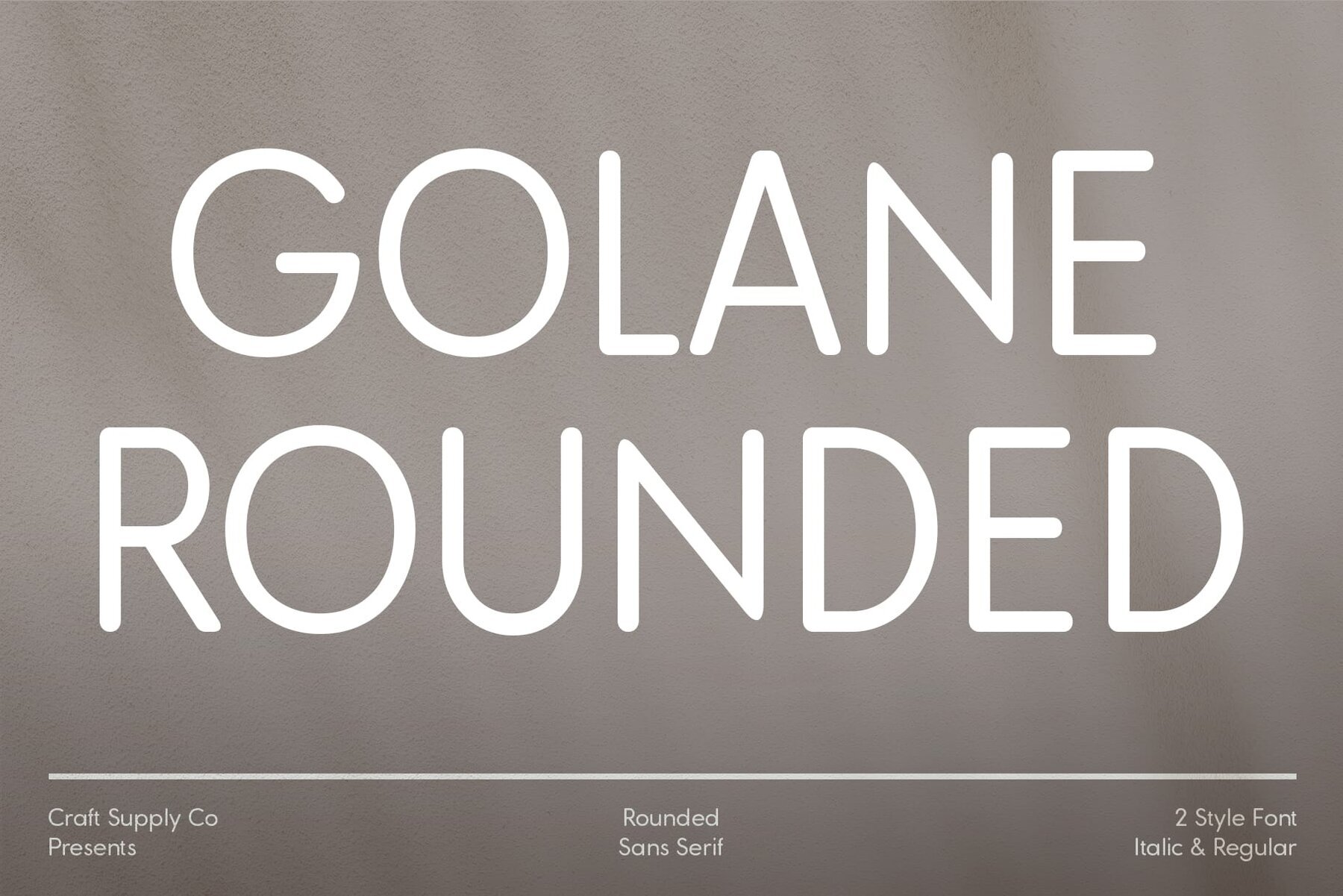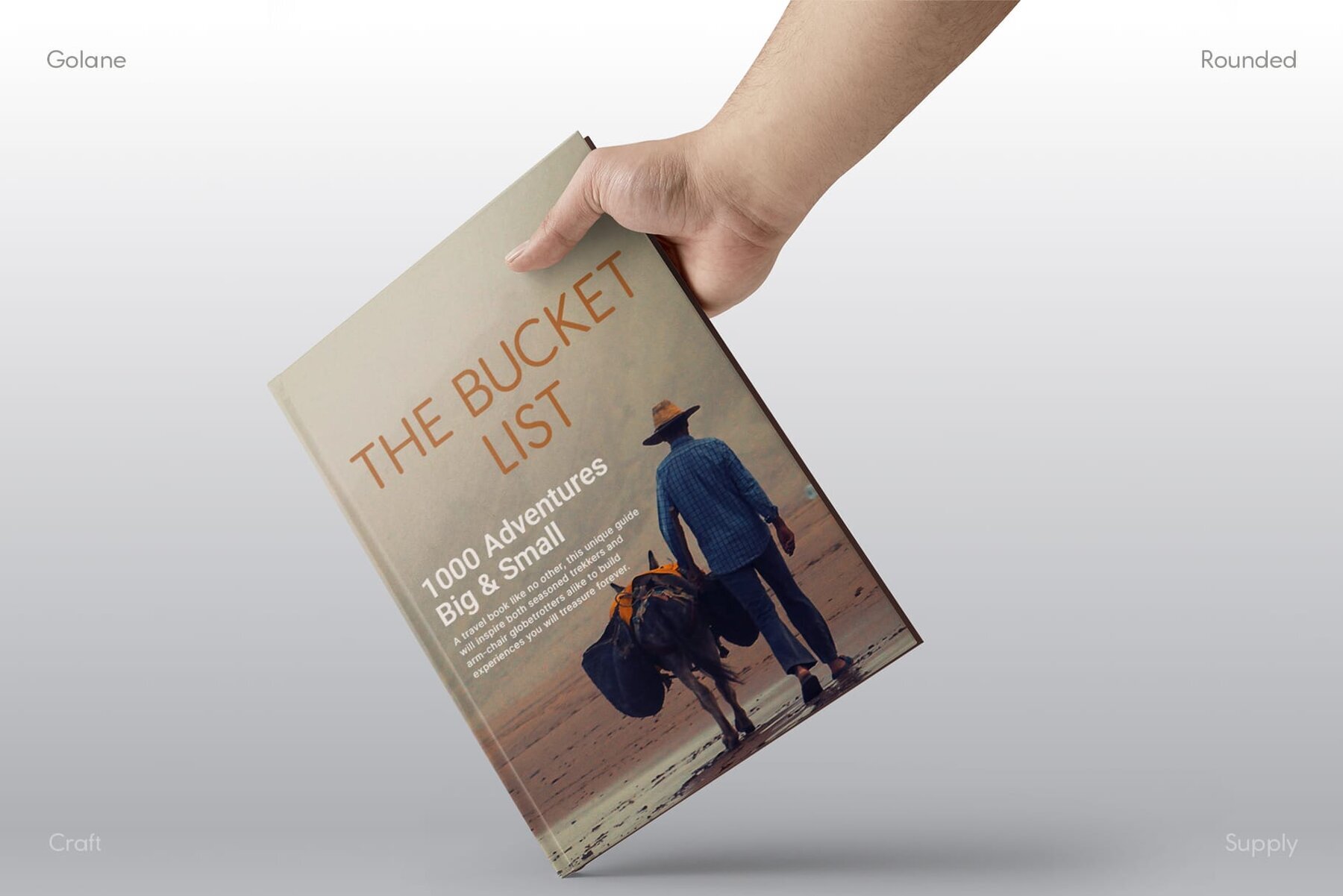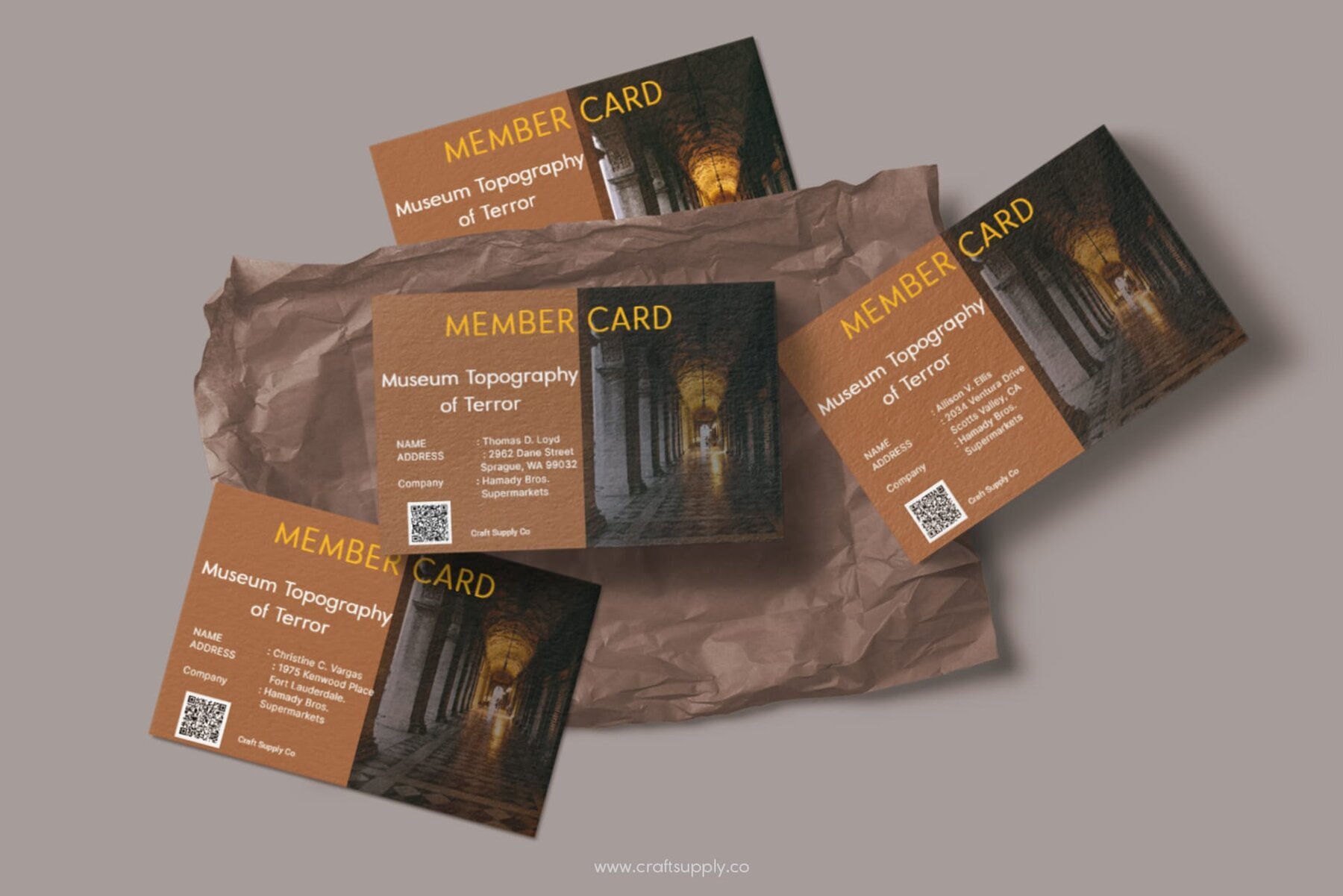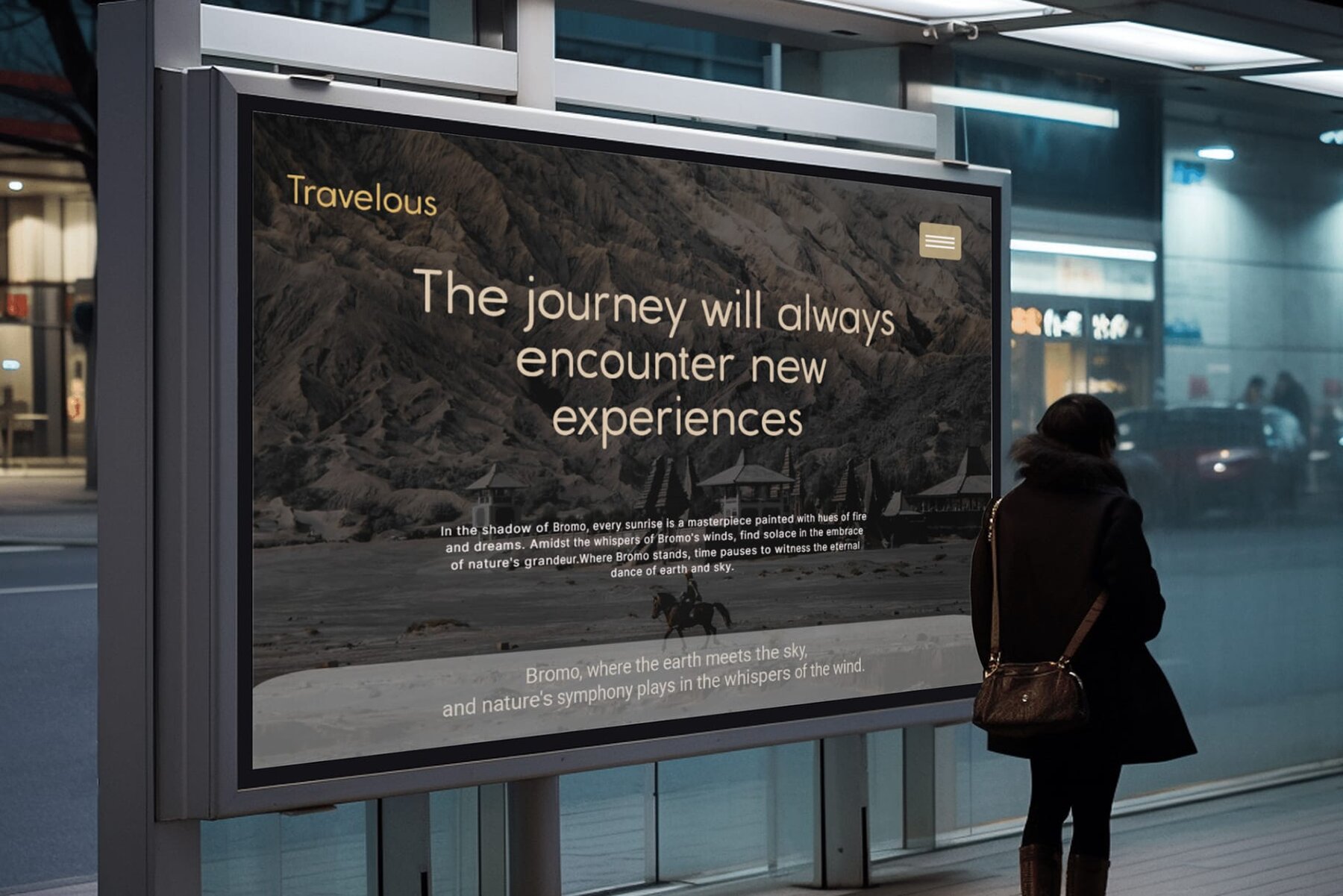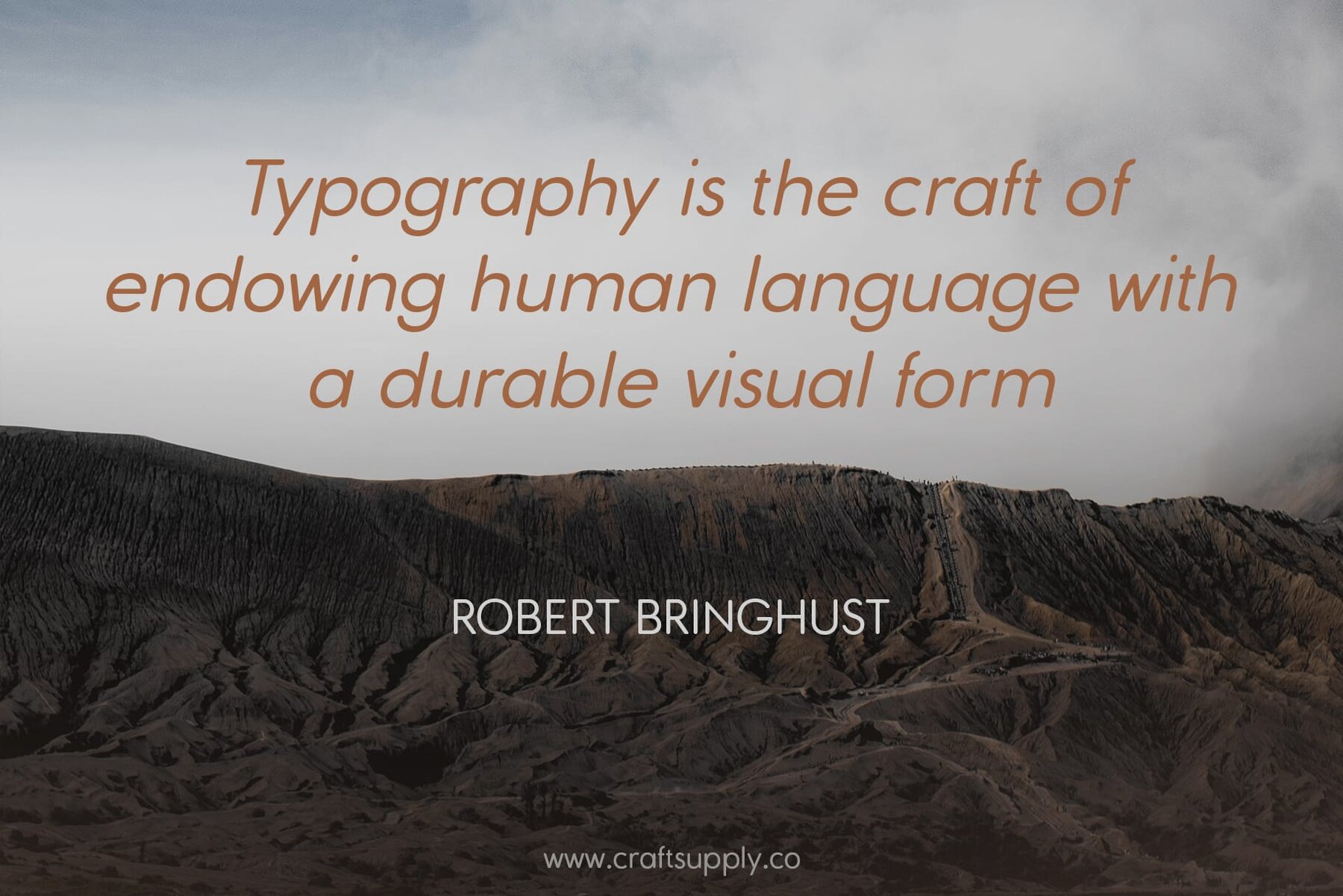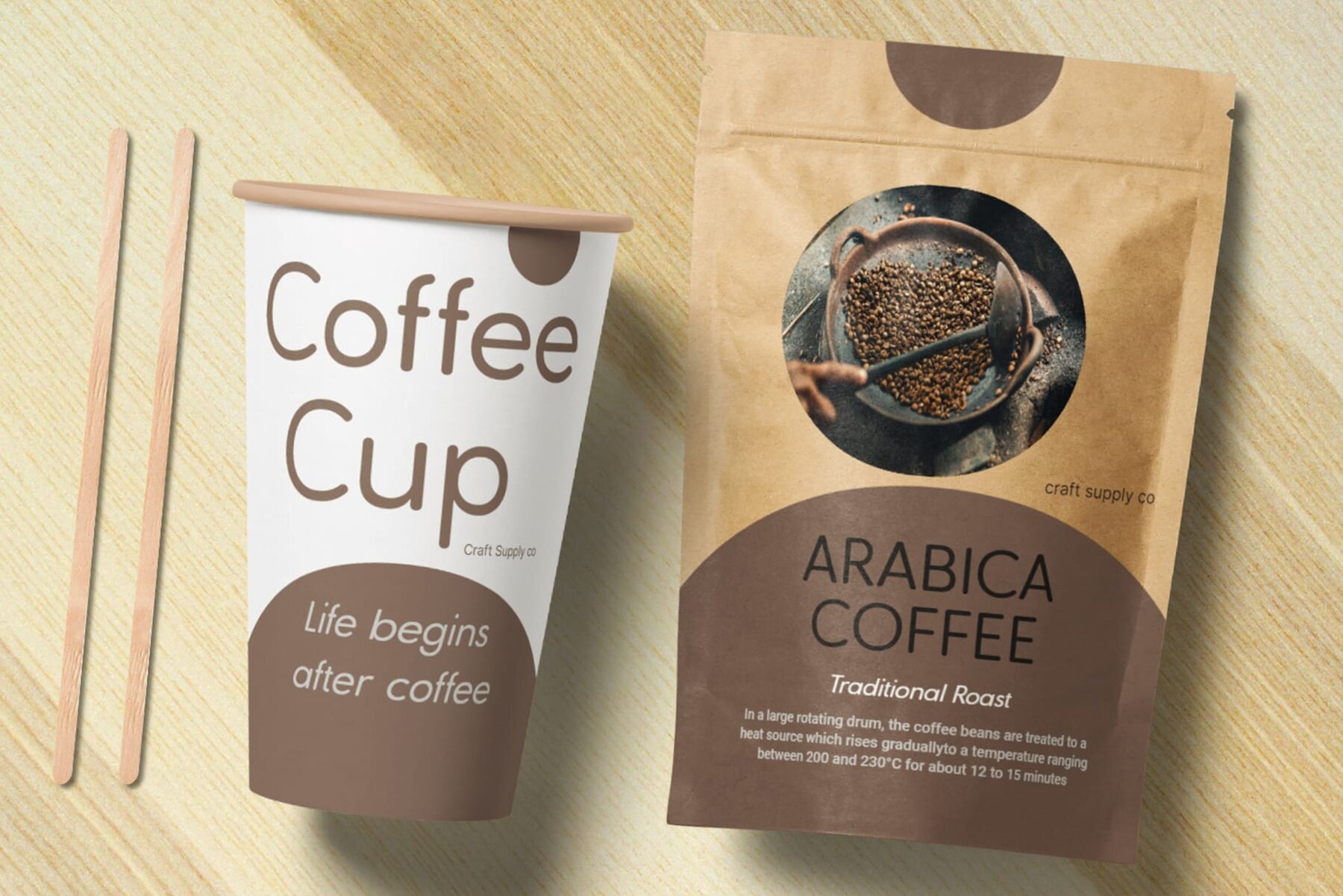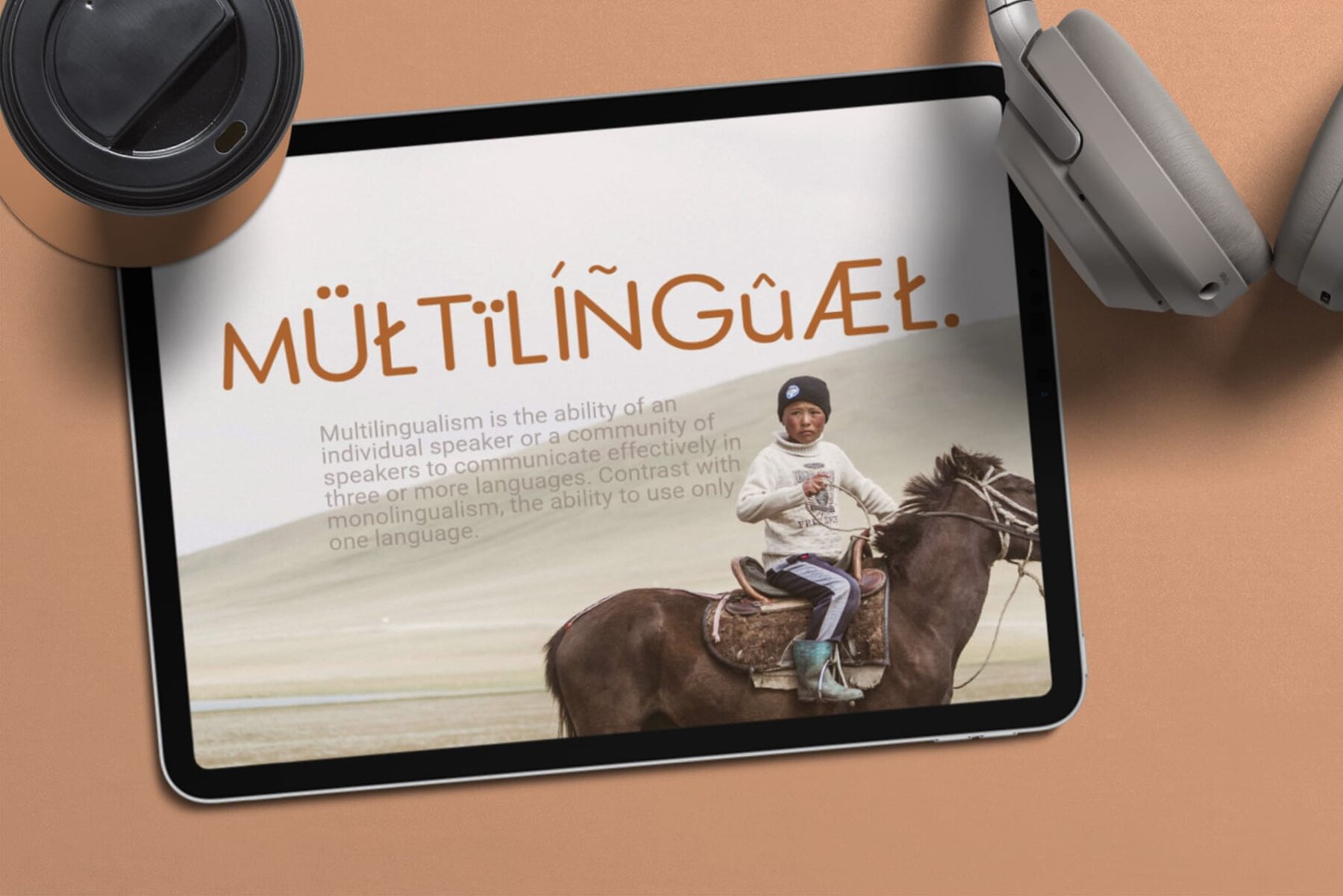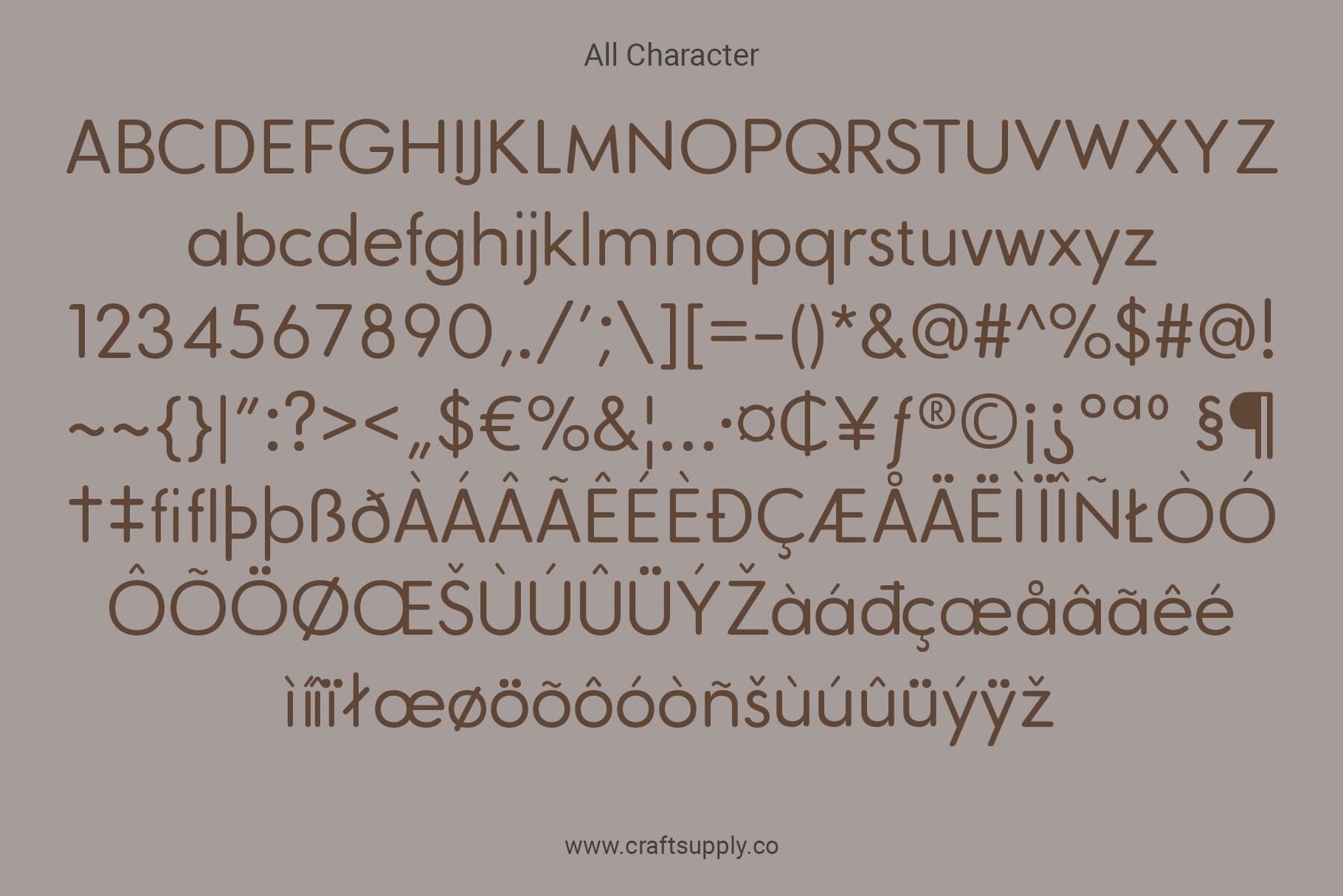
Golane Rounded Font
This typeface is a bold, geometric sans-serif that stands out with its clean, minimalist design. Ideal for display use, it boasts a contemporary style with strong, rounded characters that promise legibility and impact in headlines and branding. Its monoline, balanced weight and unadorned simplicity make it a versatile choice for modern design projects that require a touch of urban sophistication.